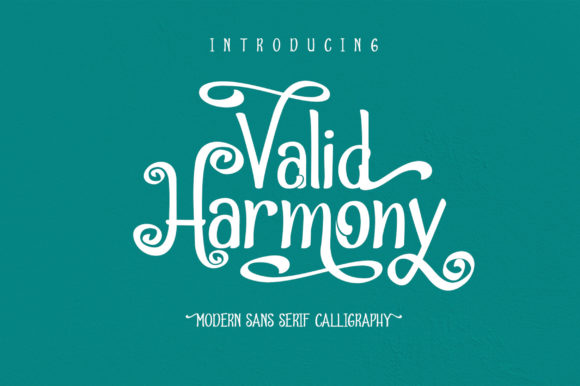
Dive into the world of typography with Valid Harmony, a modern display font that captivates with its readability, boldness, and style. A creation of Nico Muslib, this font speaks volumes with its smooth curves, making it an ideal choice for fashion branding, editorial designs, and more. Unleash your creativity and let Valid Harmony elevate your projects to new heights. Trust us; you'll love the results!
Valid Harmony stands apart from the crowd with its unique charm, striking a perfect balance between boldness and elegance. Its smooth curves flow effortlessly, creating a visual symphony that grabs attention and leaves a lasting impression. Whether you're crafting logos, designing posters, or creating eye-catching headlines, Valid Harmony is your perfect companion.
More than just a font, Valid Harmony is an expression of your individuality. Its versatility knows no bounds, allowing you to effortlessly adapt it to a wide range of projects. From fashion branding that exudes sophistication to editorial designs that demand attention, Valid Harmony seamlessly blends with your vision, bringing your creative ideas to life.
Embark on a typographic adventure with Valid Harmony. Its readability shines through, ensuring your message is conveyed with clarity and impact. Bold and stylish, this font demands attention, making it perfect for headlines, posters, and branding elements that demand to be seen. Its smooth curves add a touch of elegance, elevating your designs to a new level of sophistication.
Unlock the potential of Valid Harmony and transform your creative projects into masterpieces. Its versatility and readability make it an indispensable tool for any designer, marketer, or creative professional. Experience the power of Valid Harmony today and witness the remarkable difference it brings to your work.